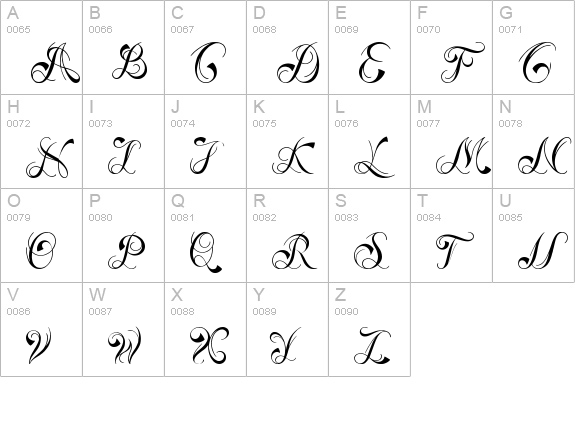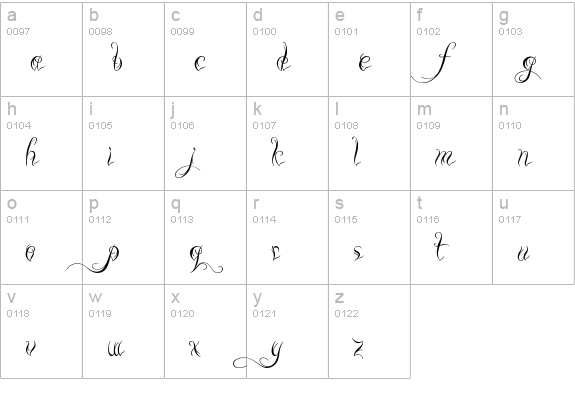
Good Script font is a beautifully crafted typeface that exudes elegance and sophistication. Its flowing strokes and graceful curves make it perfect for adding a touch of class to any project. Whether you're creating wedding invitations, branding materials, or simply looking to elevate your designs, Good Script font is the ideal choice. What makes Good Script font even more appealing is that it is available for free download at FontsMarket.com. This means that you can enjoy the beauty and versatility of this font without having to spend a dime. It's a fantastic opportunity to enhance your creative work without breaking the bank. With its wide range of stylistic alternates and ligatures, Good Script font offers endless possibilities for customization. You can easily create unique and eye-catching designs by combining different letterforms and experimenting with different settings. The result is a personalized and one-of-a-kind look that will truly make your designs stand out. Not only is Good Script font visually stunning, but it is also highly legible. Its carefully designed letterforms ensure that your text remains clear and easy to read, even at smaller sizes. This makes it a versatile font that can be used for a variety of projects, from print to digital. Whether you're a professional designer or a hobbyist, Good Script font is a must-have in your font collection. Its timeless beauty and versatility make it a go-to choice for any project. And with its availability as a free download at FontsMarket.com, there's no reason not to add this stunning font to your repertoire. So go ahead, download Good Script font today and let your creativity soar.